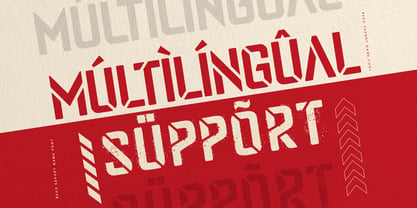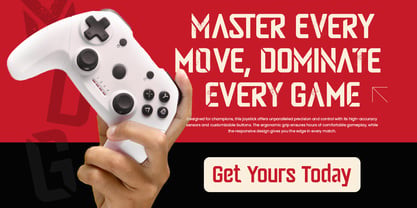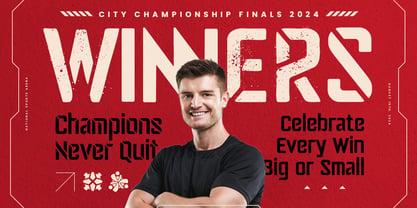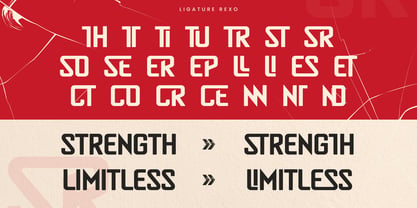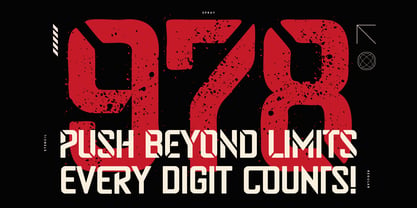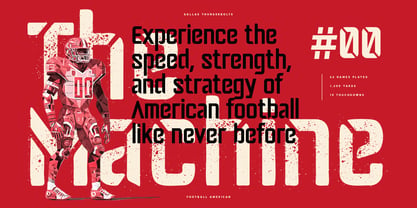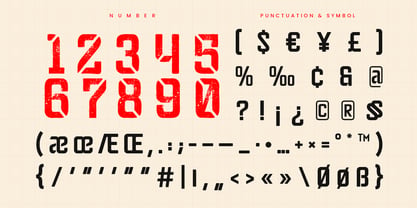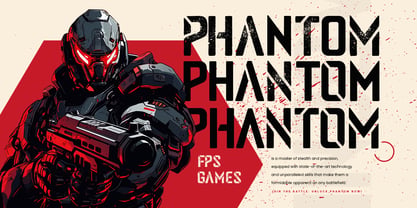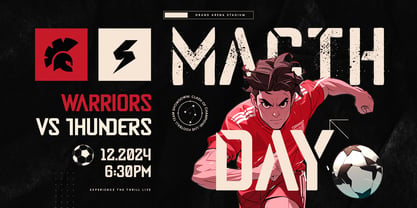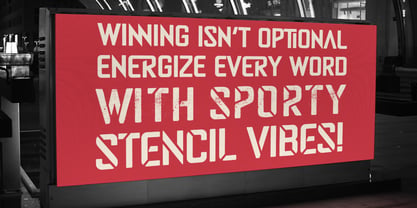
Rexo – Sport Game Font
Rexo is a sport game font created for high-energy branding and bold design. With strong, angular shapes and a modern edge, Rexo is perfect for sports teams, gaming logos, esports tournaments, athletic posters, and action-driven packaging.
Its impactful letterforms and assertive stance bring motion and strength to your visuals, making your message loud and clear whether it’s on a jersey, digital banner, or event graphic.
Step up your game with Rexo – the font that dominates the field and screen.
Rexo – Sport Game Font Features
• Bold and aggressive letter design
• Ideal for esports, athletic branding, and headlines
• Punctuation, numbers, and symbols included
• Uppercase and lowercase letters
• OpenType features included
Multilingual support for
Afrikaans, Albanian, Asu, Basque, Bemba, Bena, Breton, Chiga, Cornish, Dutch, English, Estonian, Filipino, Finnish, Friulian, Galician, German, Gusii, Indonesian, Irish, Italian, Kabuverdianu, Kalenjin, Kinyarwanda, Luo, Luxembourgish, Luyia, Machame, Makhuwa-Meetto, Makonde, Malagasy, Manx, Morisyen, North Ndebele, Nyankole, Oromo, Portuguese, Quechua, Romansh, Rombo, Rundi, Rwa, Samburu, Sango, Sangu, Scottish Gaelic, Sena, Shambala, Shona, Soga, Somali, Spanish, Swahili, Swedish, Swiss, and more.
Crush the competition with Rexo – the bold font for powerful sports and gaming visuals. 🏆🎮